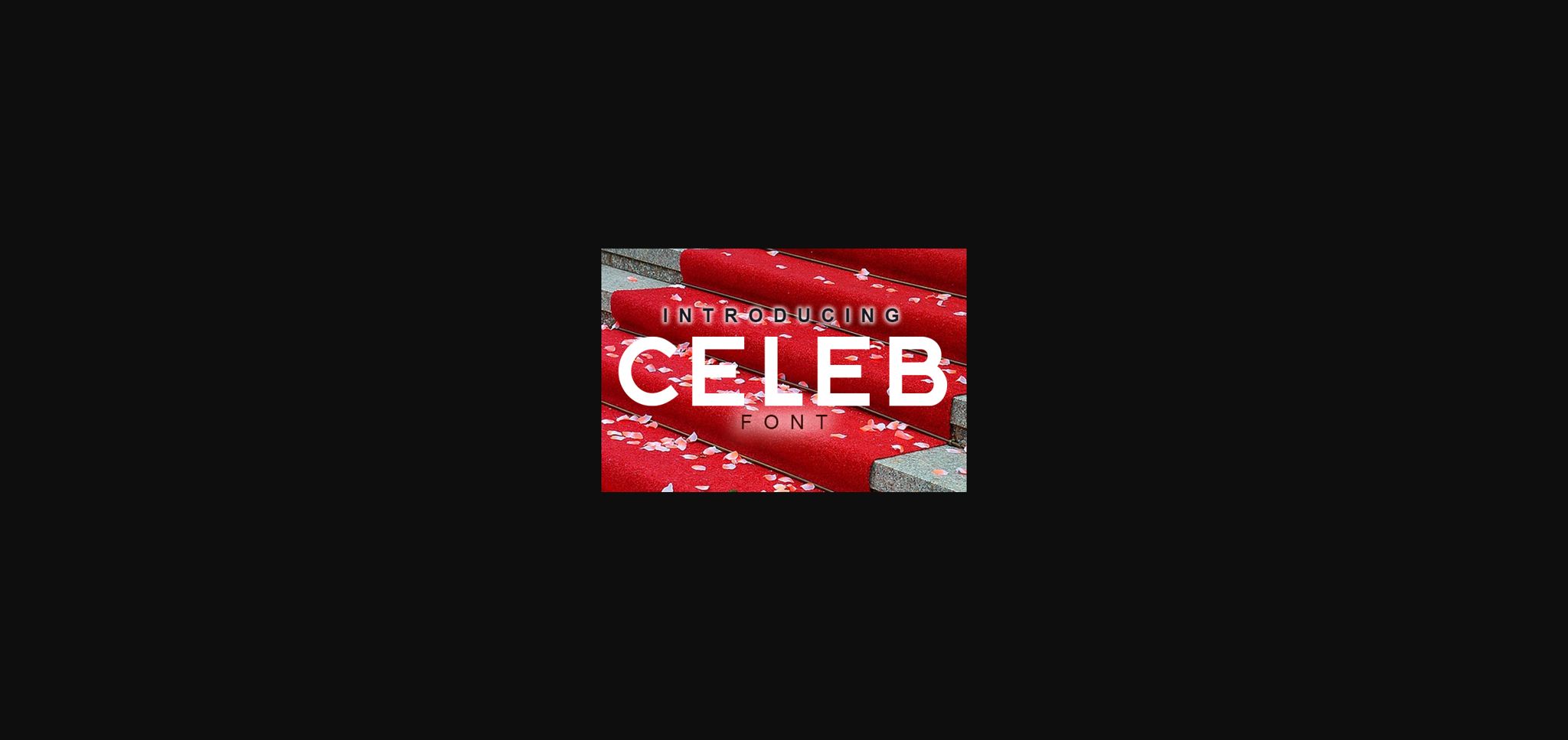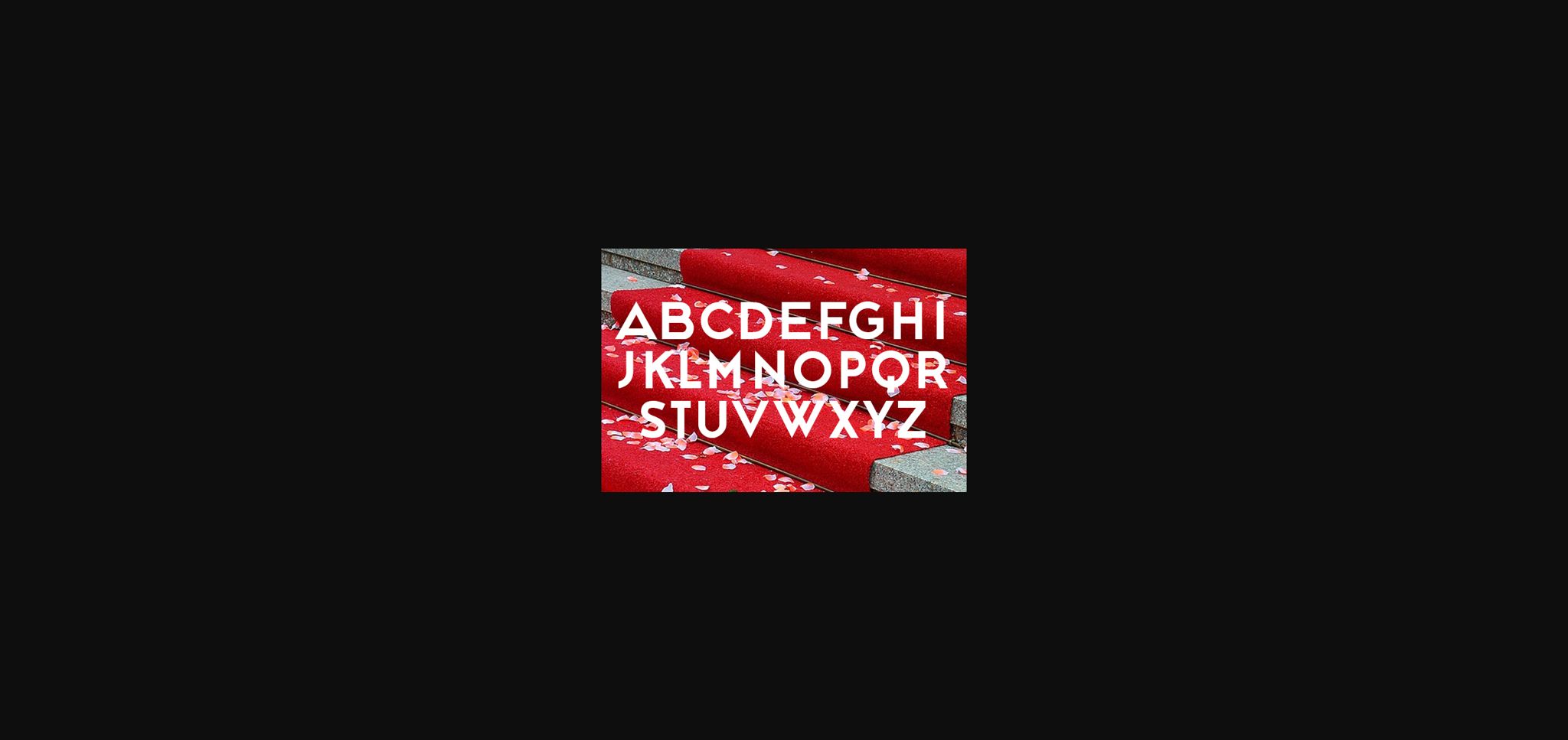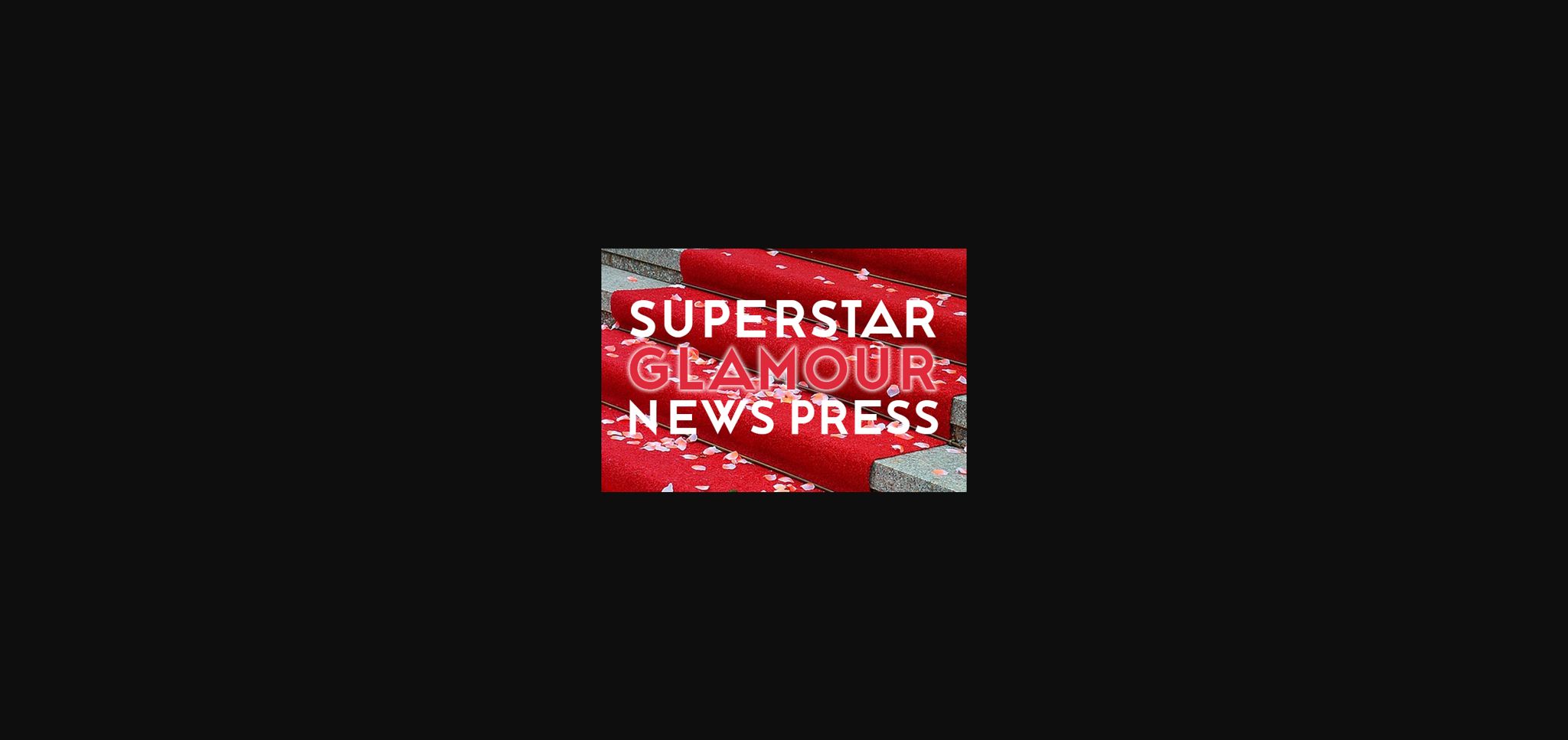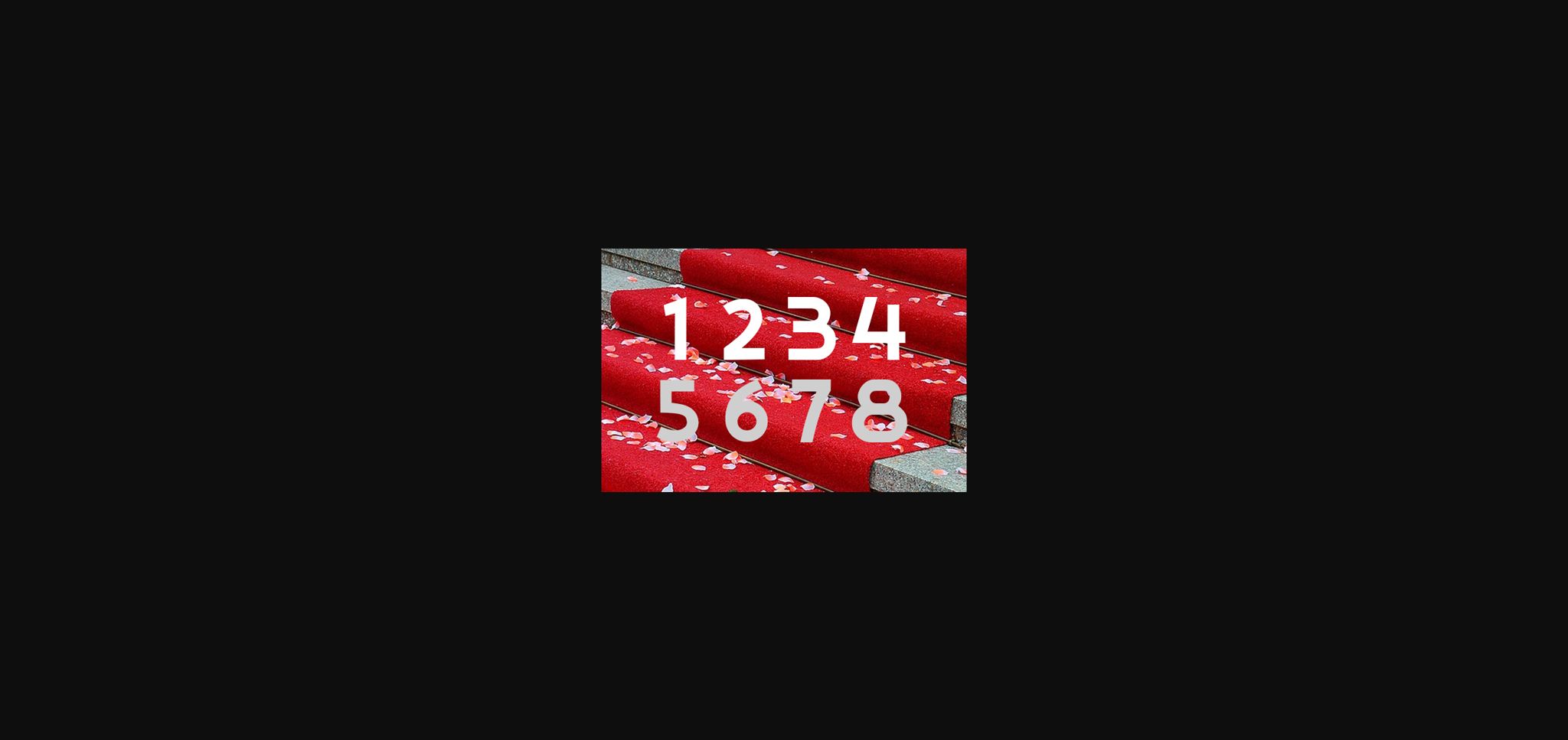
Celeb Font
About Celeb Font
Celeb is a stylish and neat sans serif font. Add it confidently to your creative projects and notice how it makes them stand out!